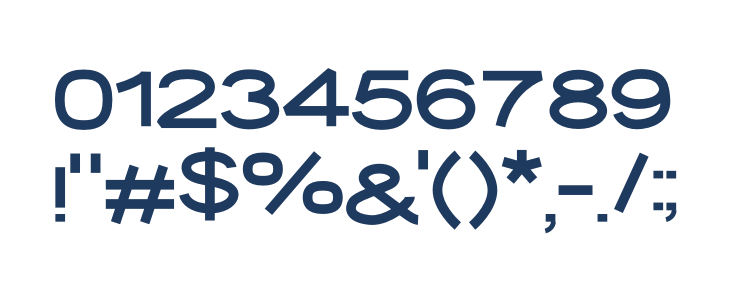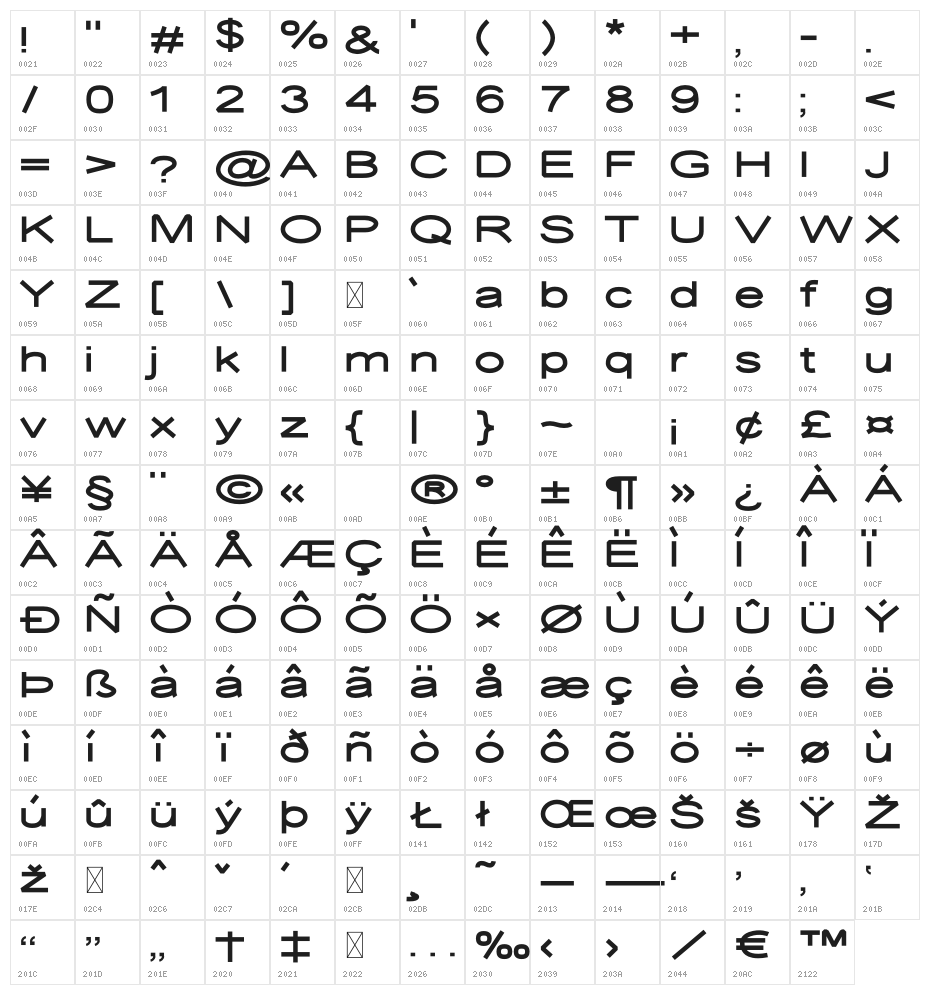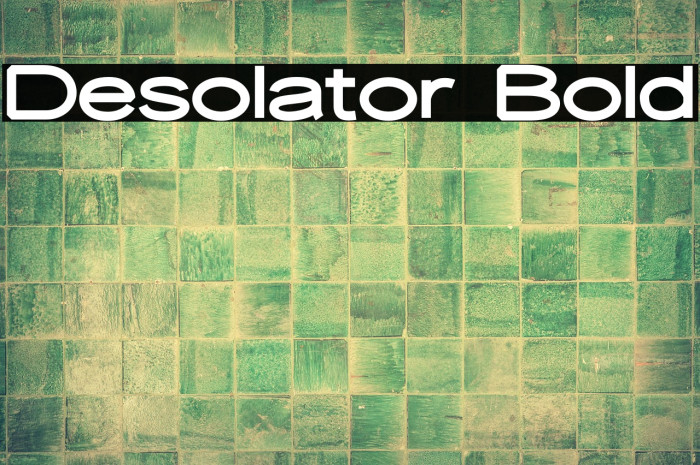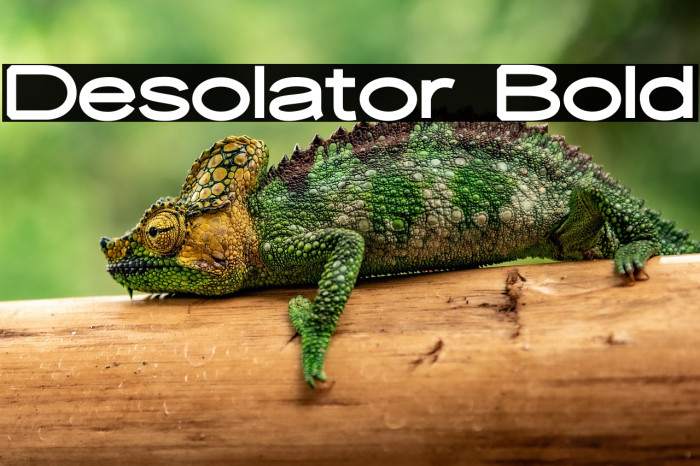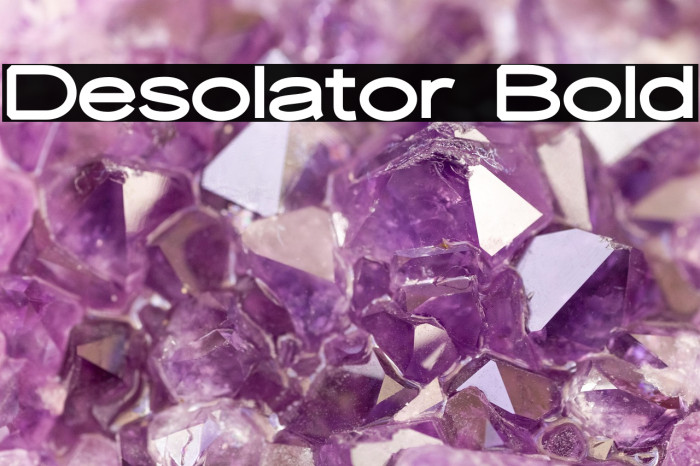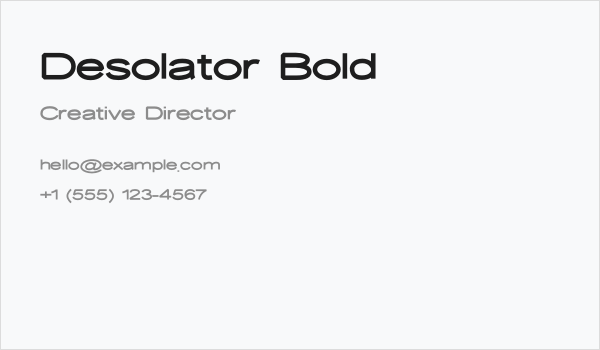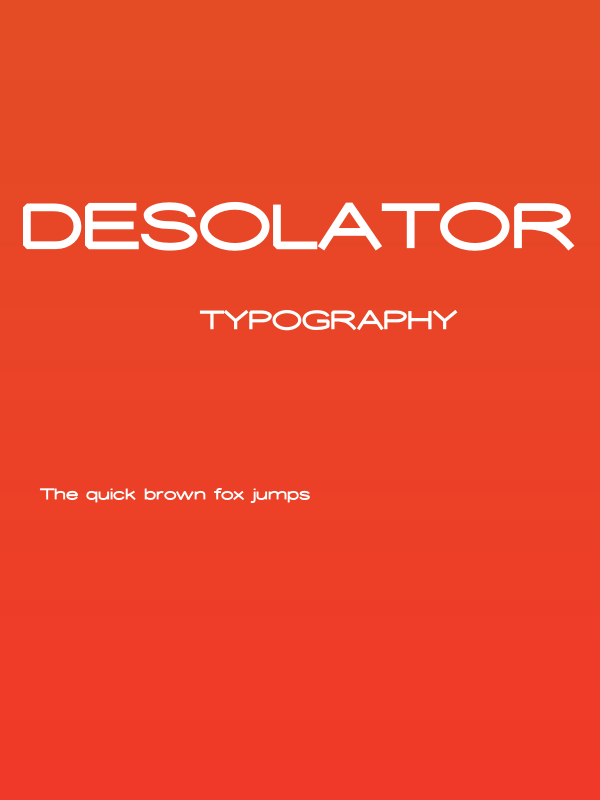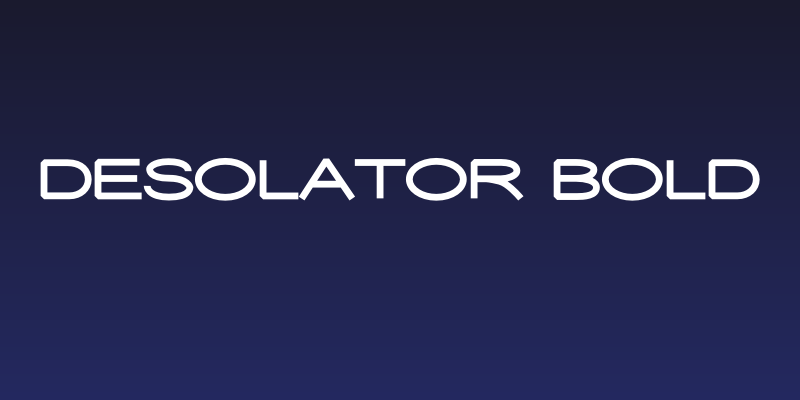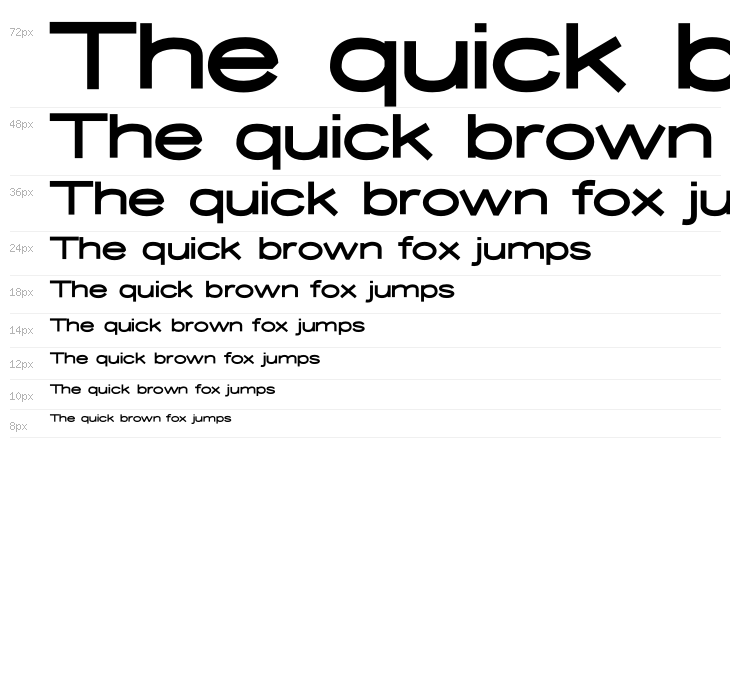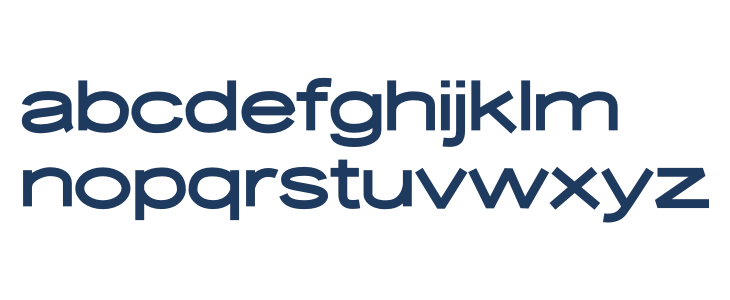
Desolator Bold Font
Desolator Bold Description
This font features a bold and modern sans-serif style with clean, geometric lines. The characters are evenly spaced, providing a balanced and harmonious appearance. The uppercase letters are slightly wider, giving a strong and impactful presence, while the lowercase letters maintain a consistent flow. The numerals are clear and easy to read, making them suitable for various applications. The special characters are well-integrated, complementing the overall design. This font is versatile, suitable for both digital and print media, and can be used effectively in a variety of design projects.